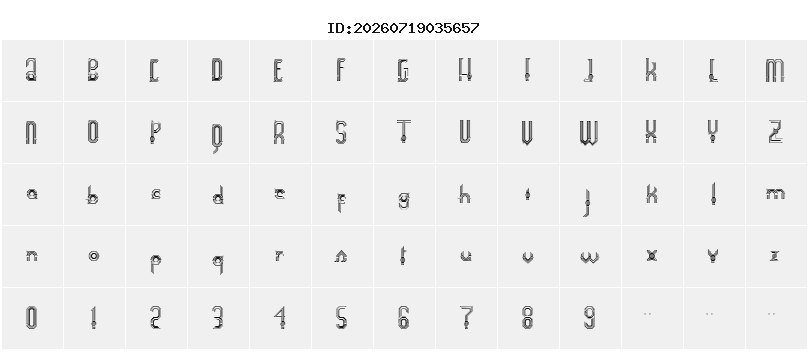
• Font Name: Connexion
• Full Font Name: Connexion
• Designer: Albertako
• Manufacturer: Alberto Villanueva
About Connexion.ttf
Connexion.ttf is a modern, elegant sans-serif font designed for ultimate readability and visual harmony. Perfect for branding, headlines, web design, and print materials.